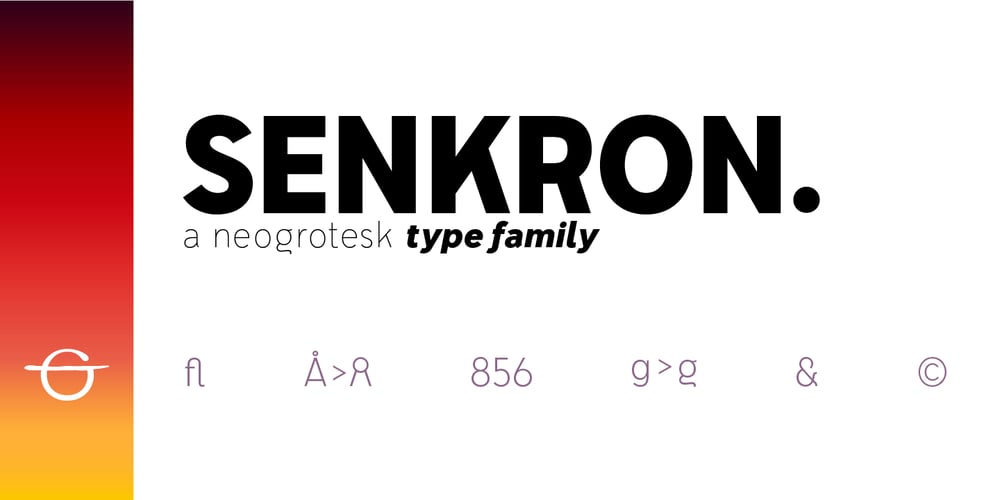
Senkron
Senkron font
Senkron Font Family was designed by Murat Çil and published by Gurup Stüdyo. Senkron contains 24 styles and family package options. Senkron is composed of “normal” and a “blok” styles. Senkron (“normal”) was designed as a pure and modern neo grotesk font. The anatomy of the letters are designed to achieve an equal text color. For this purpose, the legs of the letters “R” and “K” are designed with a vertical angle to prevent the white space that would occur in the middle of these letters. In the minuscule, the characteristic features of letters such as ‘a’, ‘l’, ‘t’ are concretized and legibility is supported in the text. Considerable attention has been paid to the harmony between the anatomical structures of the letters and the diacritical mark’s structure.Senkron Blok is arranged for situations which have diacritical marks overflow to leadings of the headline and headline typographical color is affected negatively from this situation. For this purpose, majuscule diacritical letters are resolved within the letter height. However, when this is done, new forms are obtained by integrated diacritical marks with letters instead of directly merging them. The idea behind this approach is to preserve the typographic value of diacritical marks and emphasize the semantic value of diacritical letters. 82 letters have been redesigned in this way.